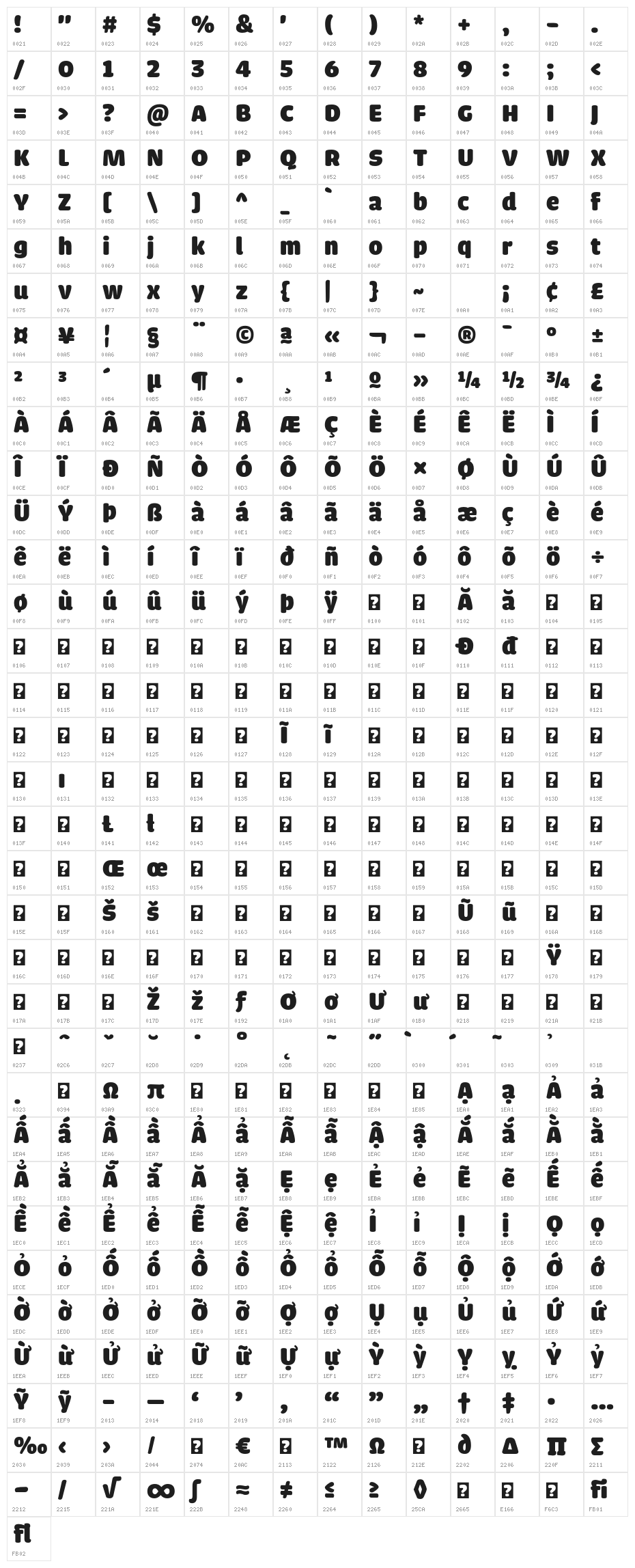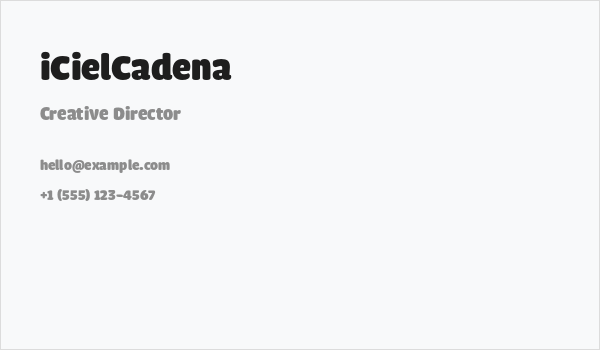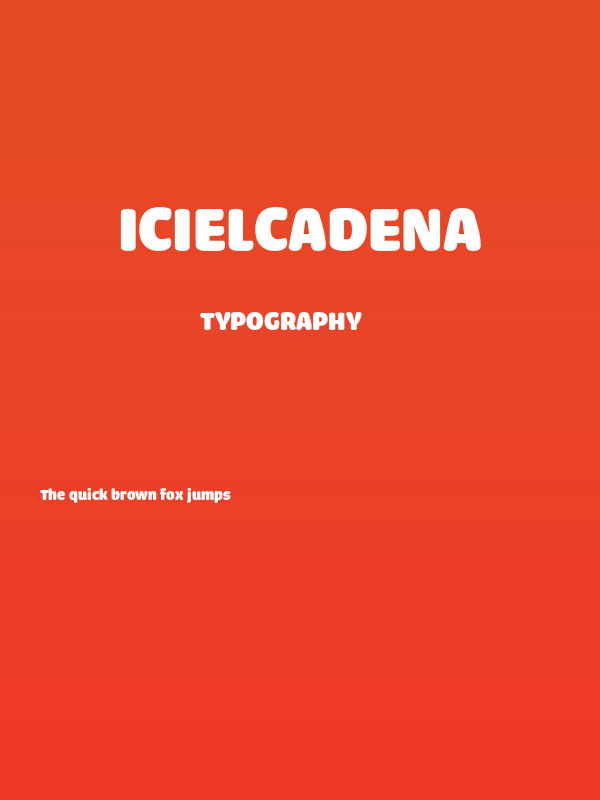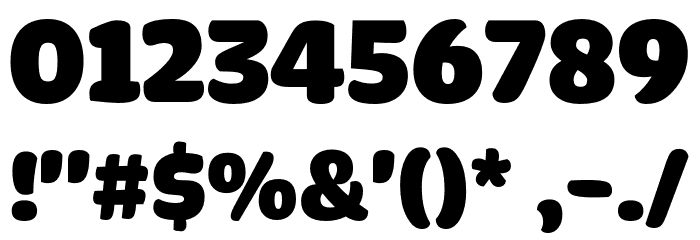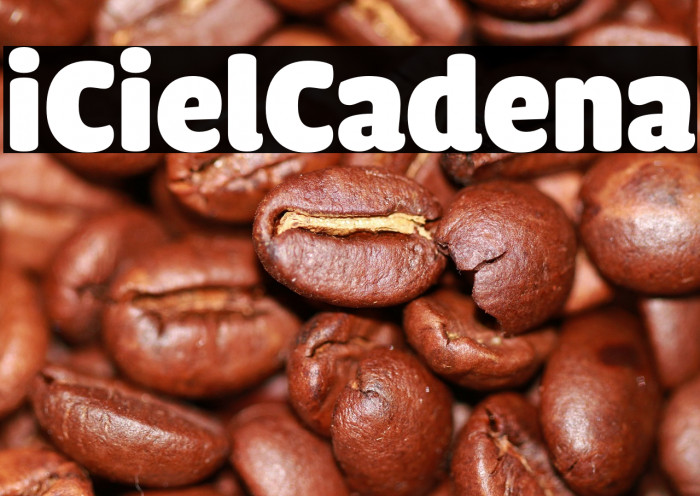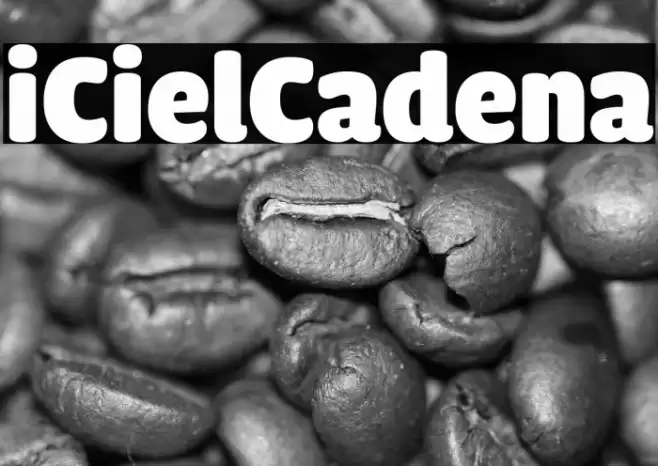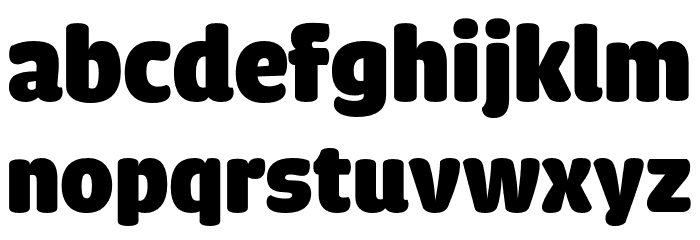
iCielCadena Font
iCielCadena Description
This font features bold, rounded characters with a playful and friendly appearance. The letters are thick and have a uniform stroke width, giving them a strong presence on the page. The rounded edges soften the overall look, making it approachable and suitable for casual or informal designs. The numerals and special characters maintain the same boldness and rounded style, ensuring consistency across all elements. This font is highly legible and stands out due to its substantial weight and rounded forms.
| Proposed Projects | Ideal for children's books, playful branding, posters, and social media graphics. |